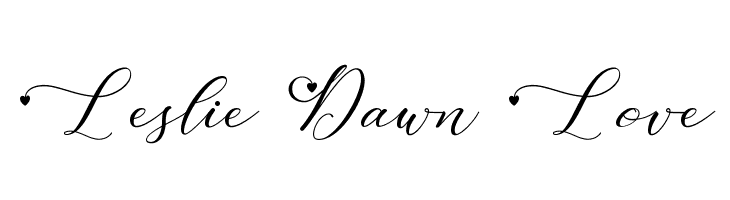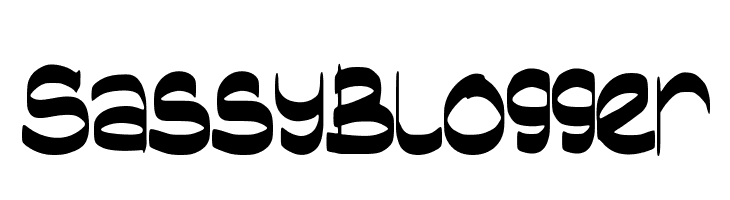
A bold, dynamic font with geometric forms and playful curves.
A bold, geometric font with a modern and angular design.
A bold, expressive script font with a dynamic, handwritten style.
A bold, rounded font with a modern and cohesive design.
A decorative, gothic-inspired font with sharp, angular edges and pointed serifs.
A playful, hand-drawn font with thin, flowing lines and a whimsical style.
A modern, high-contrast font with elegant and stylish character shapes.
A futuristic, striped font with a digital, gradient-like appearance.
An elegant cursive font with smooth, flowing lines and a sophisticated style.
An elegant, flowing script font with a natural handwritten style.